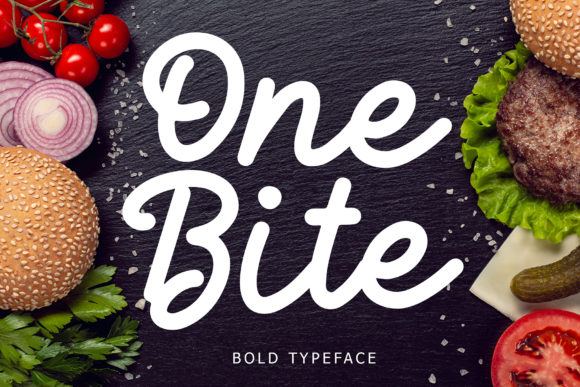
One Bite Font: A Culinary Delight for Your Creative Palate
Feast your eyes on One Bite Font, a delectable script font that will tantalize your design senses and leave you craving for more. Inspired by the culinary world, this font is a perfect blend of boldness and elegance, just like that first perfect bite of your favorite dish.
Indulge in the casual charm of One Bite Font. Its down-to-earth, readable nature makes it the perfect choice for adding a touch of authenticity and relatability to your designs. Whether you're creating logos, branding materials, invitations, or social media graphics, One Bite Font will bring a unique and captivating touch to your creations.
The versatility of One Bite Font is truly remarkable. Its wide range of applications makes it a must-have in the toolbox of any creative professional. From elegant wedding invitations to playful posters, from stylish branding to eye-catching social media posts, One Bite Font seamlessly adapts to your creative vision, adding a touch of sophistication and charm.
Like a master chef carefully crafting a culinary masterpiece, the creators of One Bite Font have meticulously handcrafted each letterform to ensure readability and visual appeal. The result is a font that effortlessly flows from one character to the next, creating a harmonious and visually pleasing experience.
With One Bite Font, your designs will become irresistible, leaving your audience hungry for more. Its unique charm and versatility make it the perfect choice for those seeking to create truly mouthwatering designs. So, dive into the world of One Bite Font and let your creativity take a bite out of the ordinary!